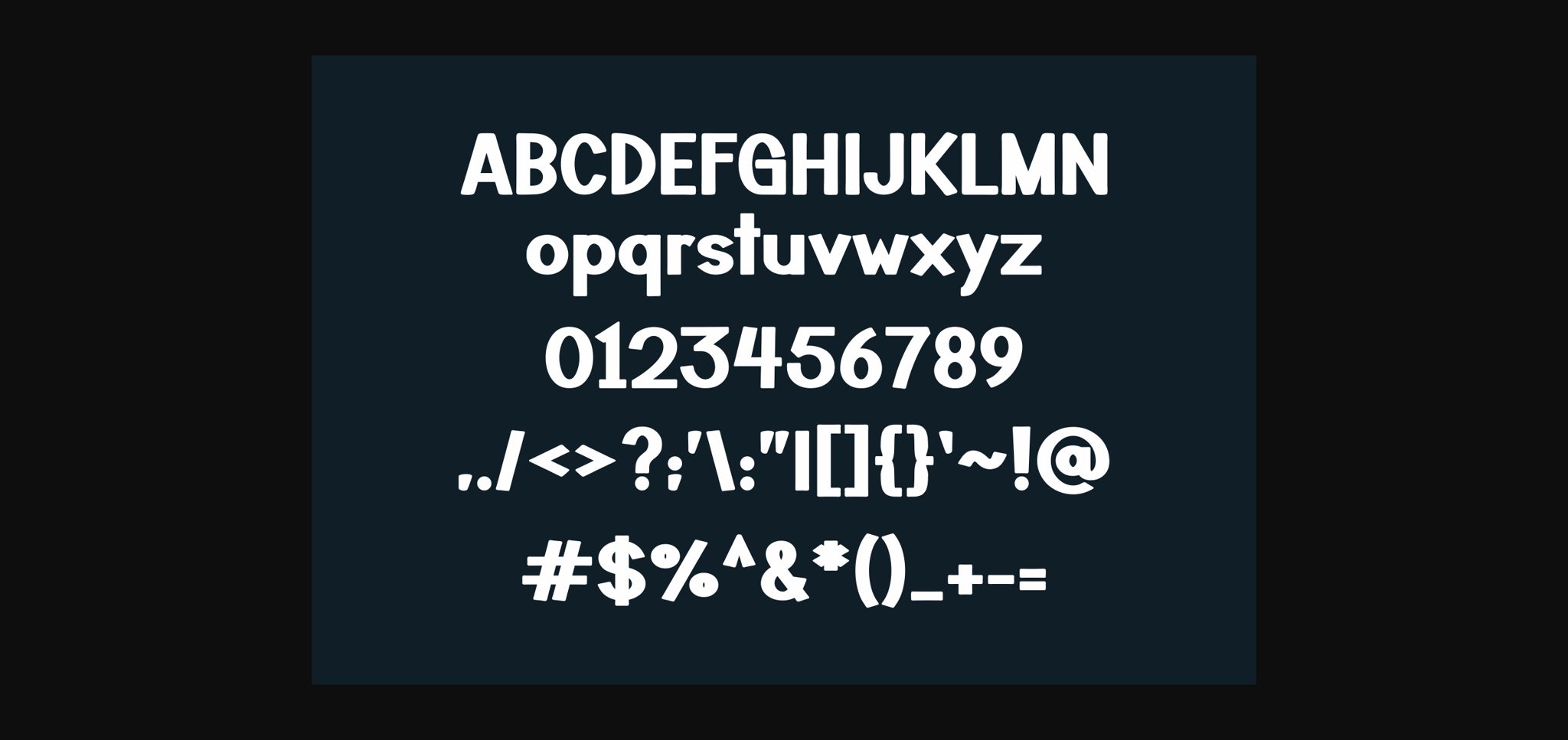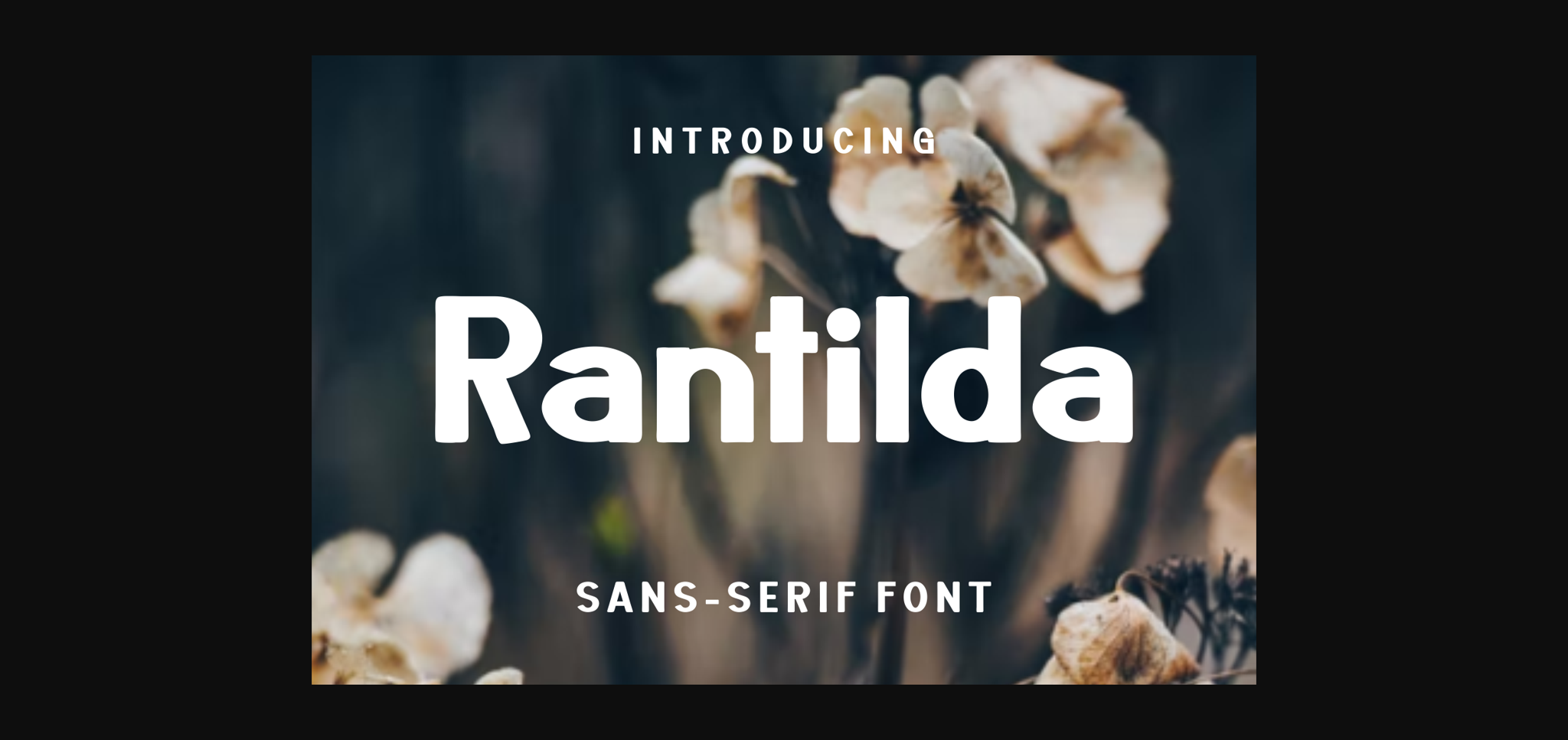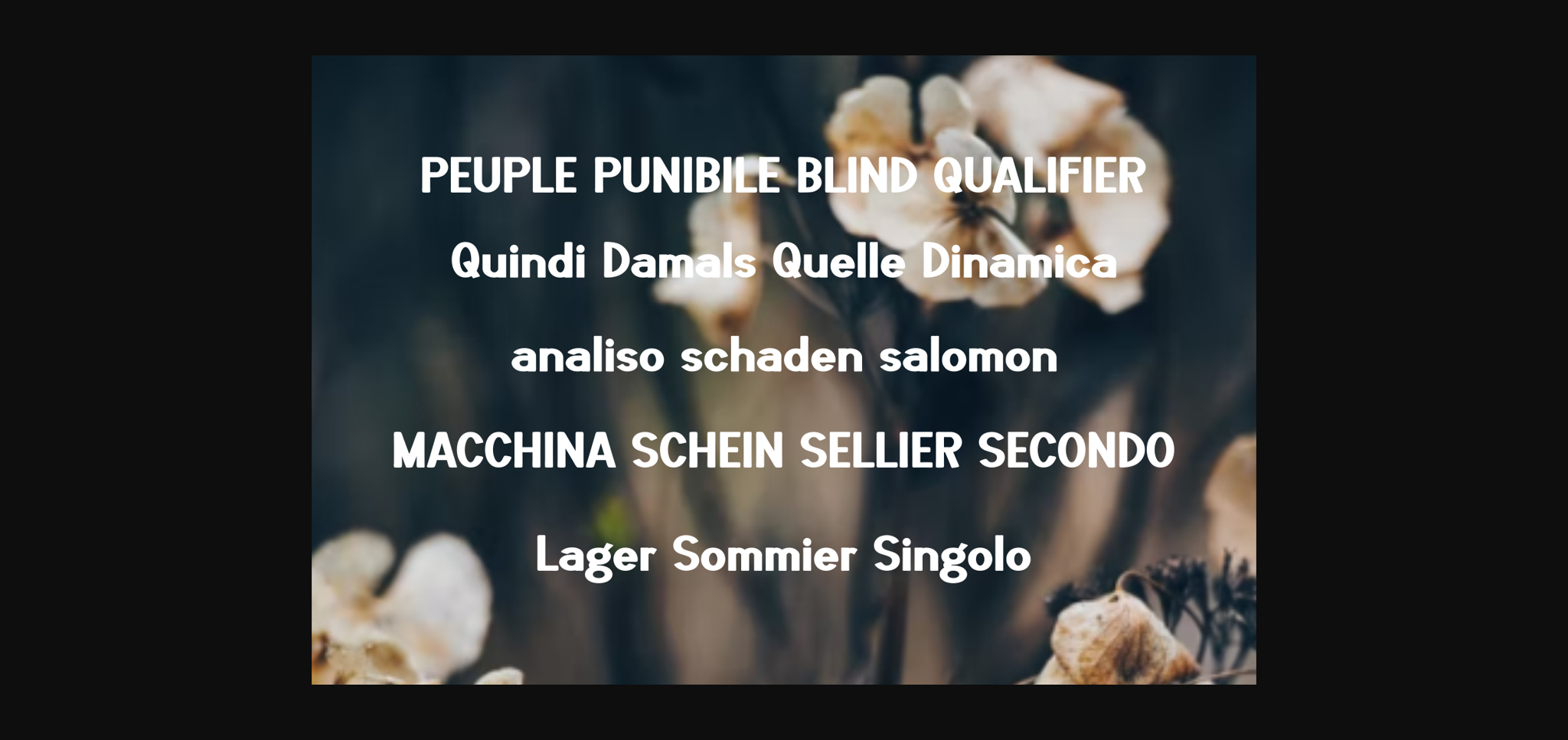
About Rantilda Font
Rantilda is a cool and unique sans serif font. Fall in love with its incredibly distinct and timeless style and use it to create spectacular designs!